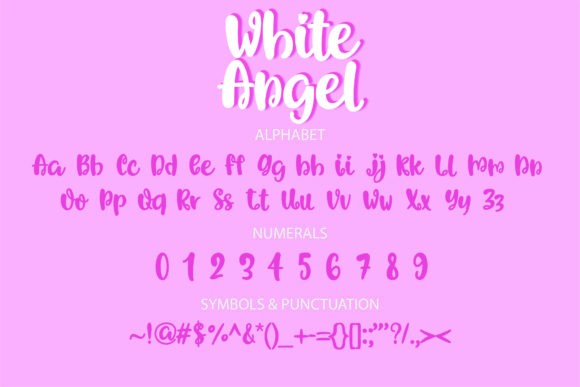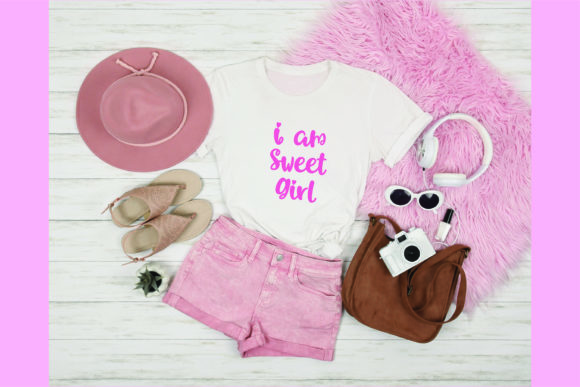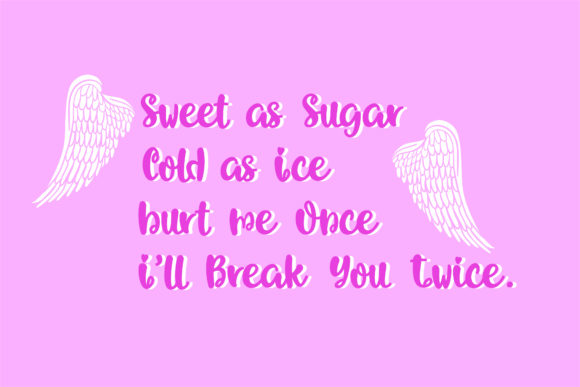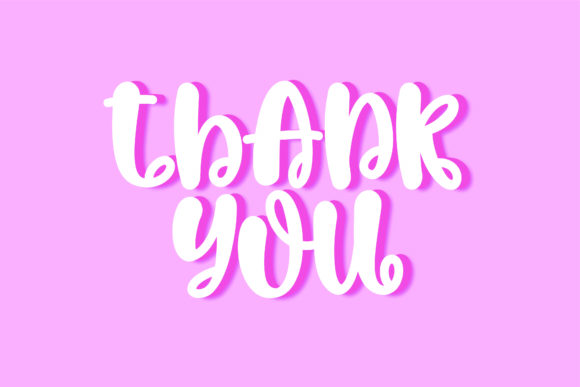
White Angel Font
About White Angel Font
White Angel is a lovely script font featuring charming, playful characters that seem to dance along the baseline. Add this font to your most creative ideas, and notice how it makes them stand out!